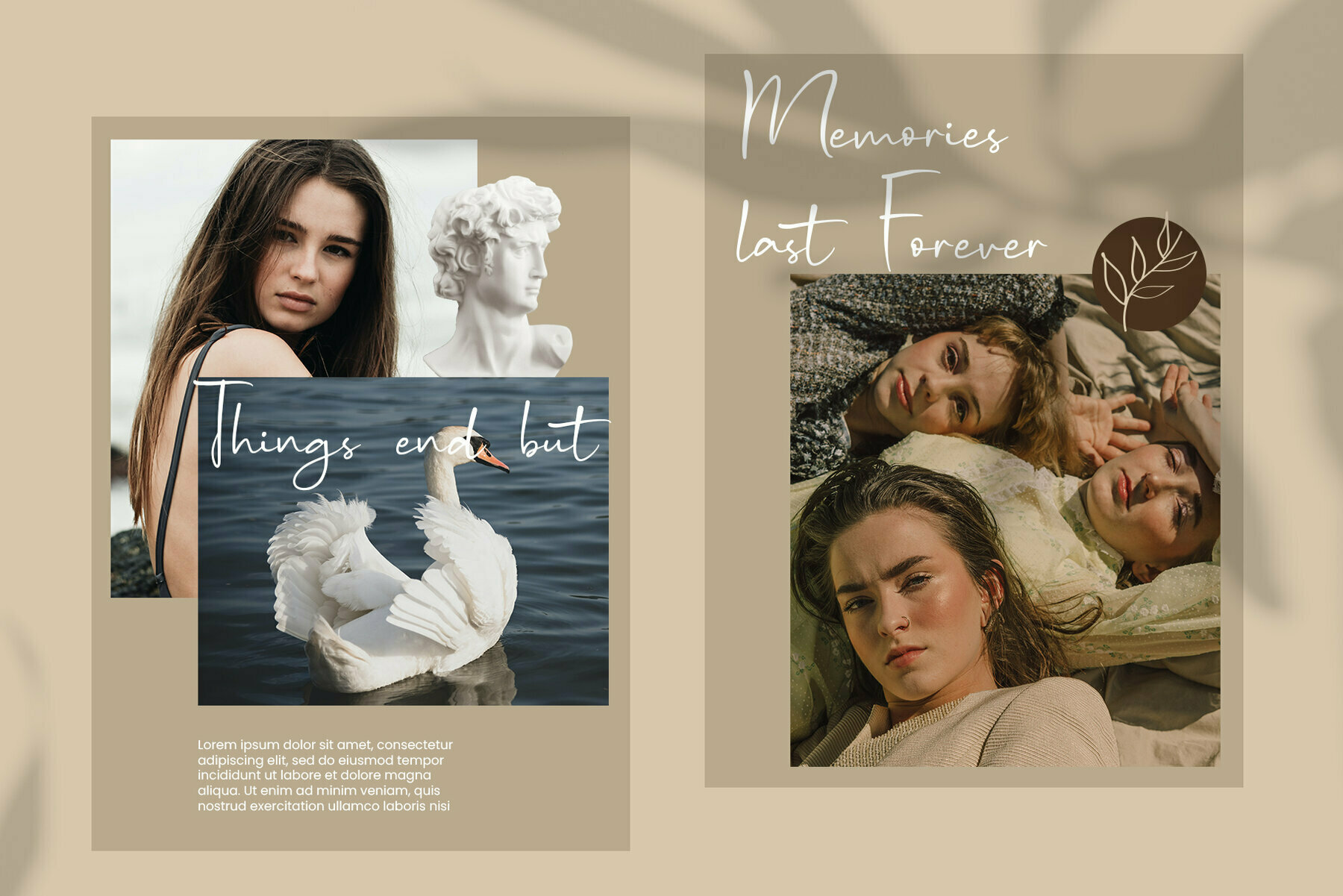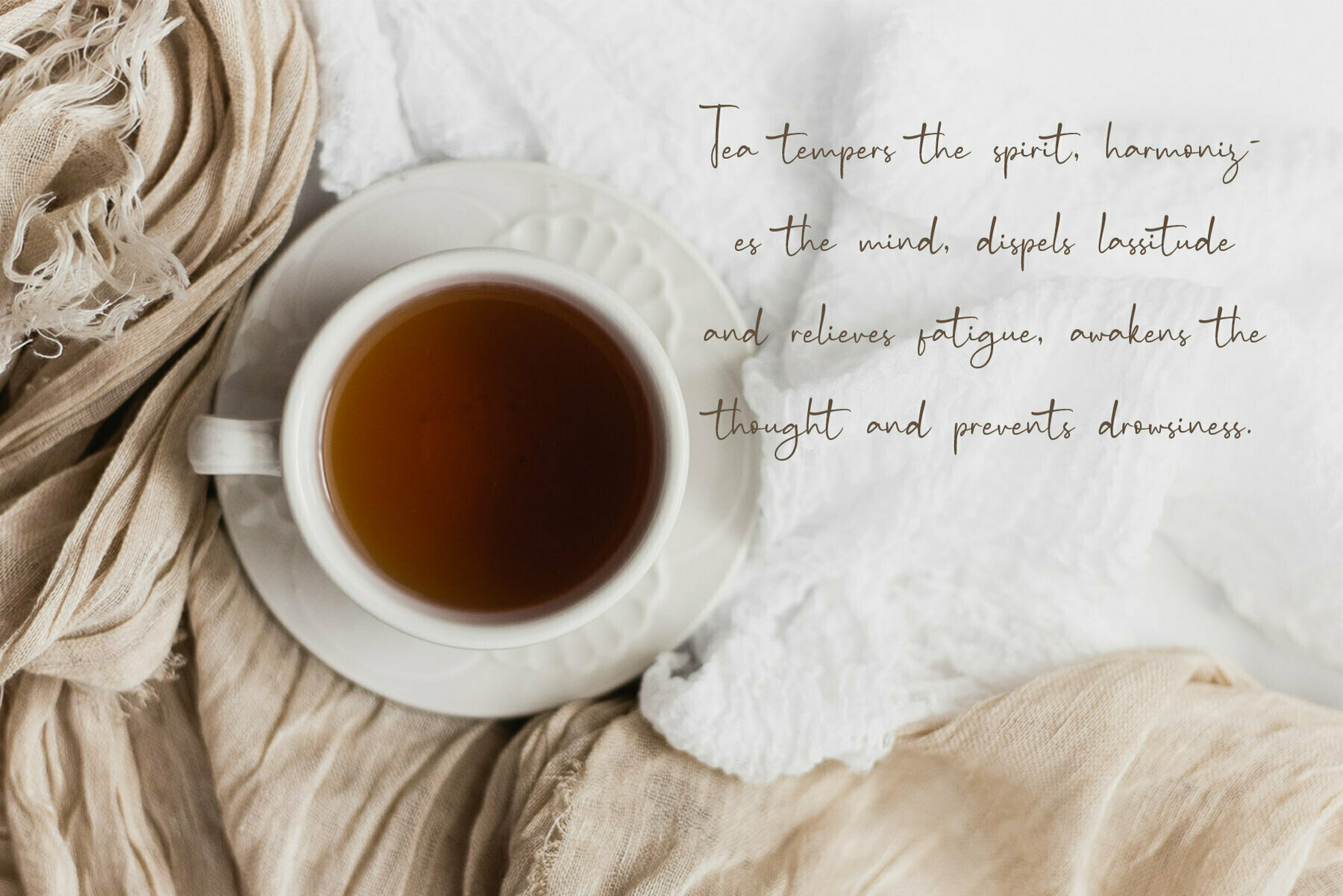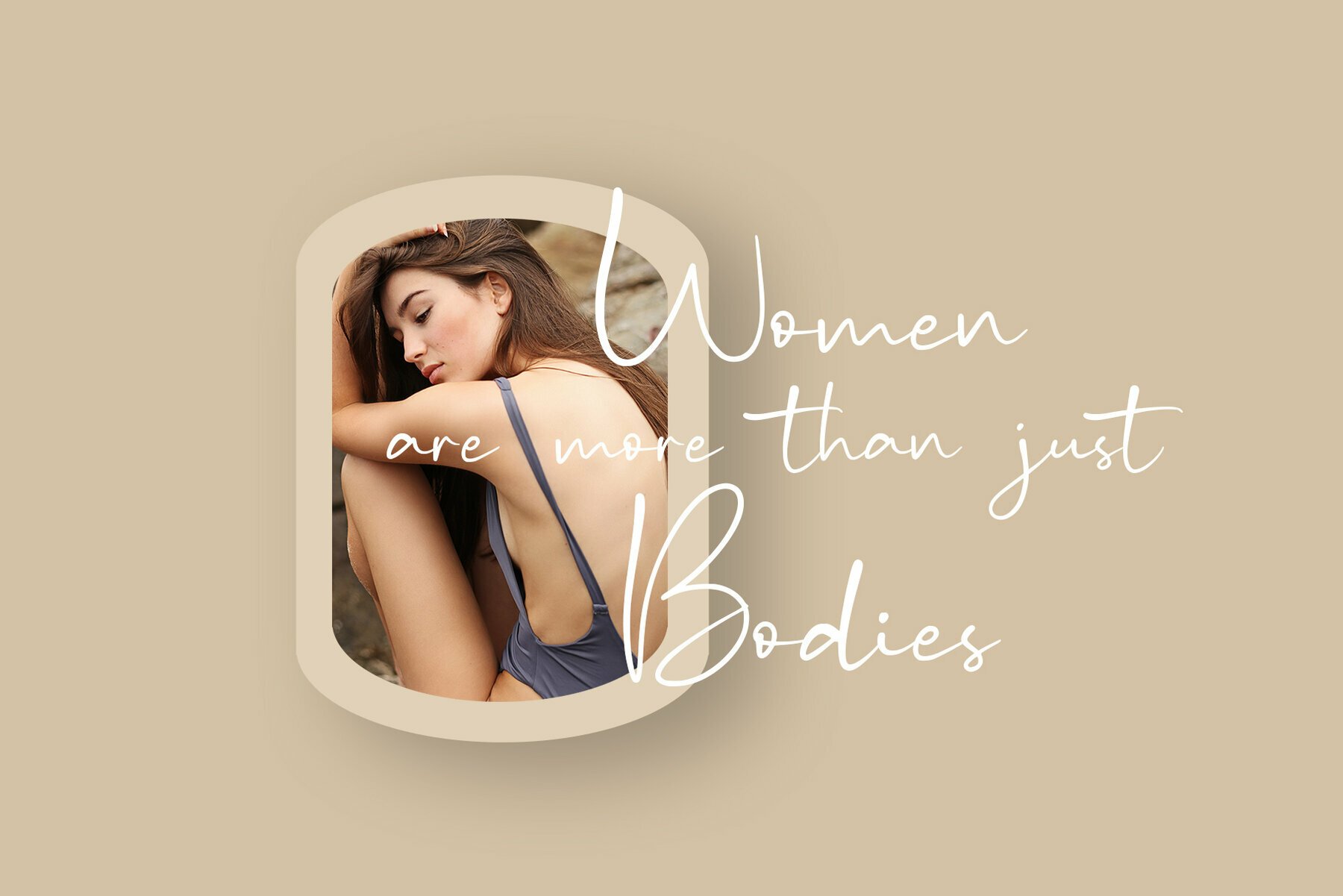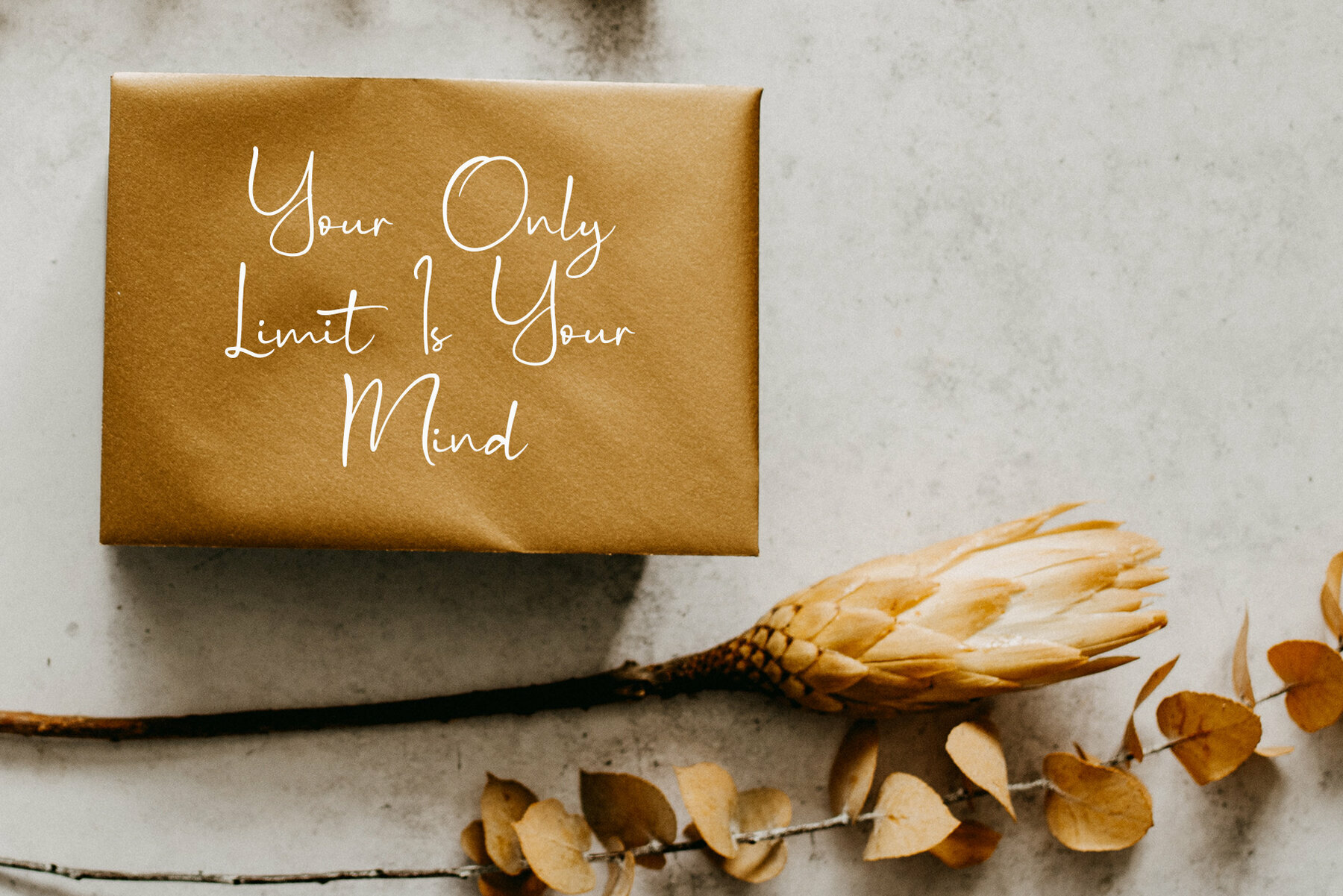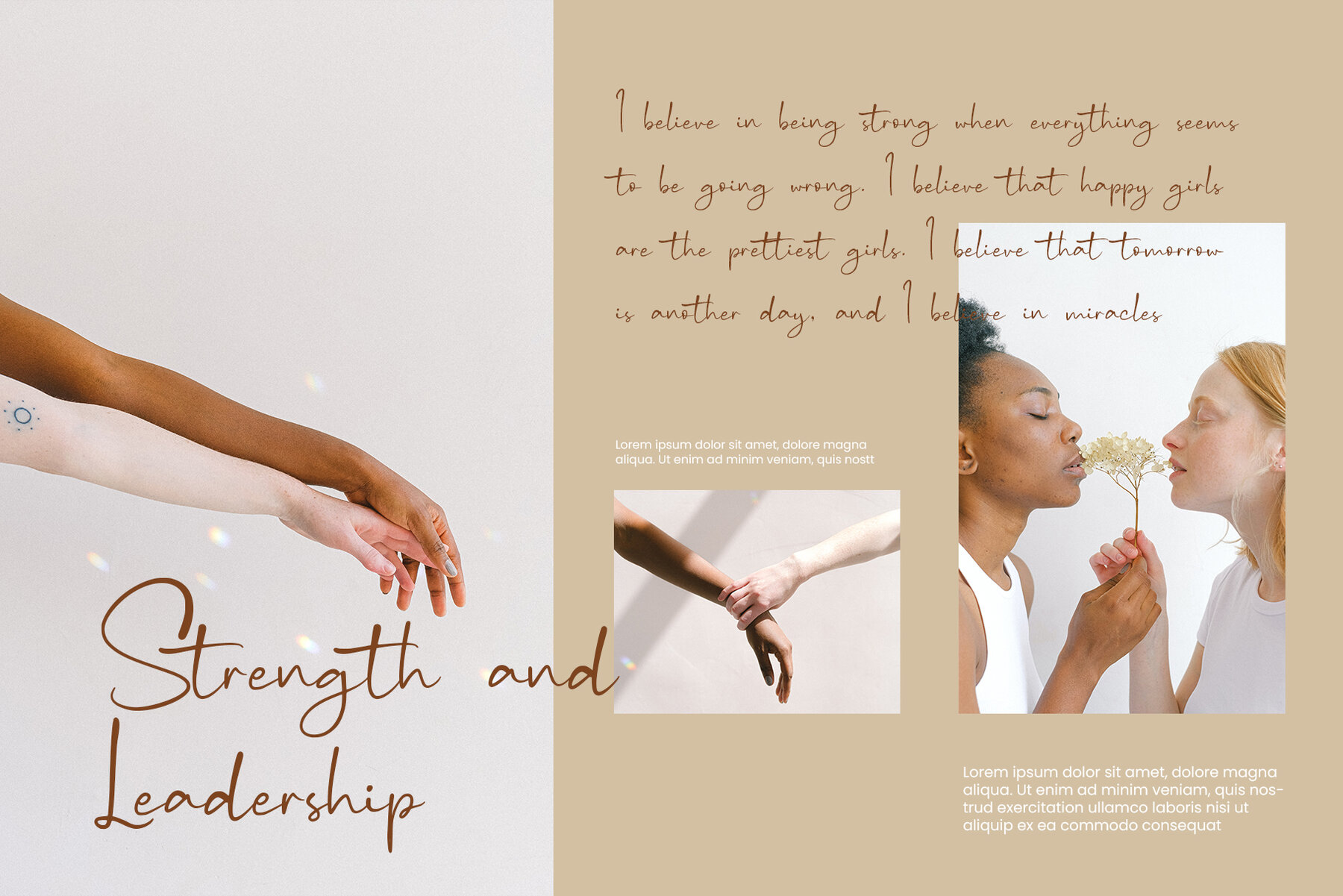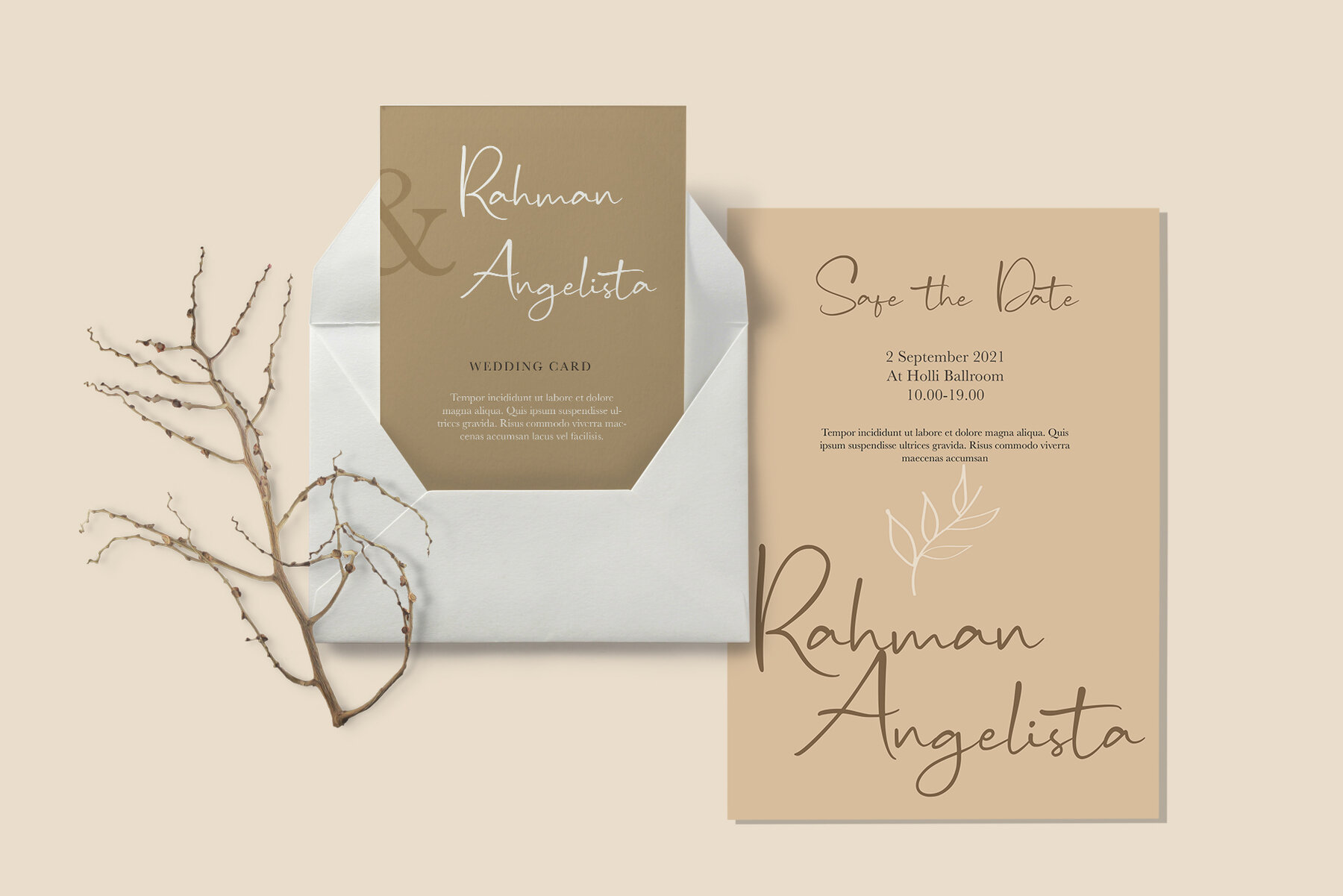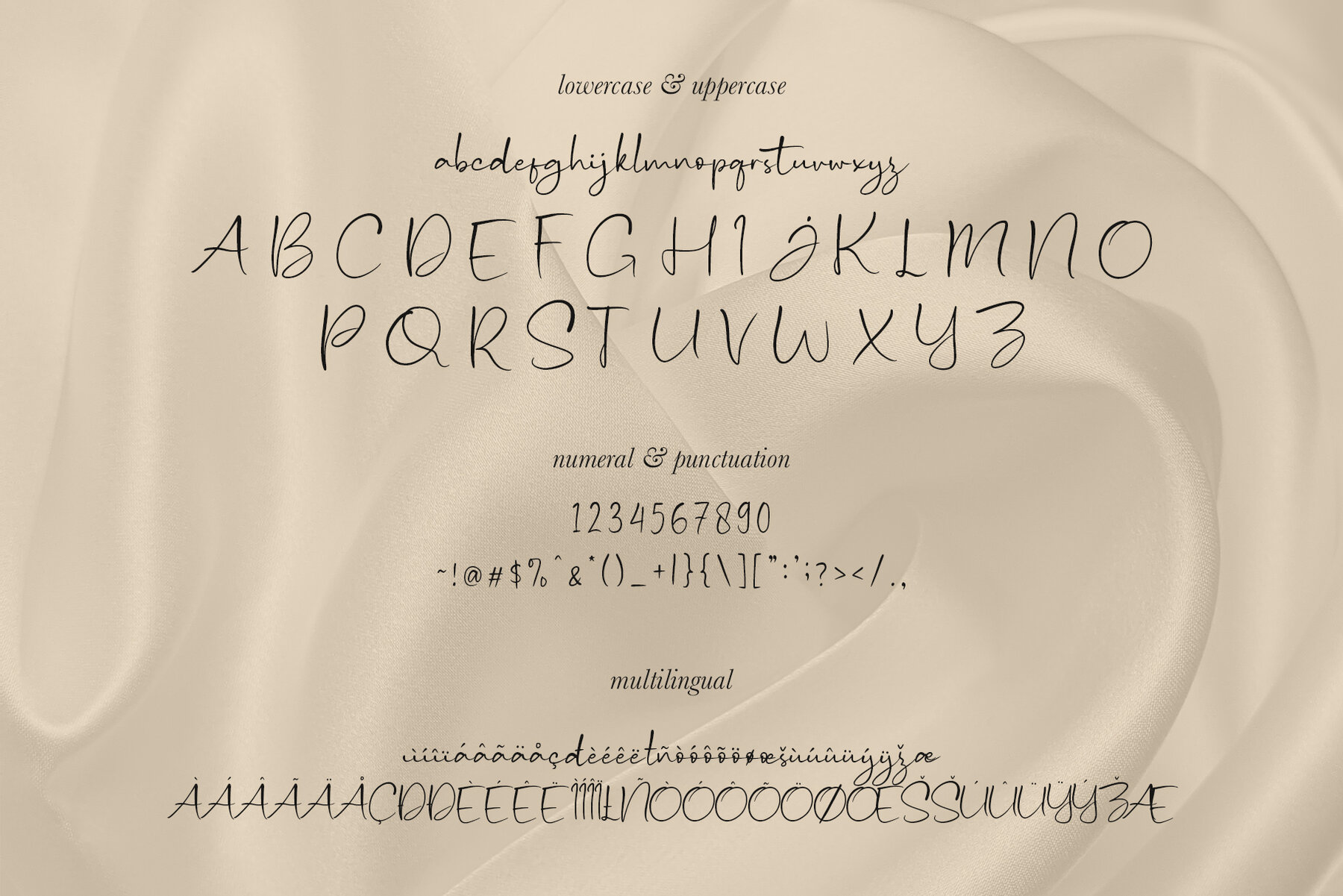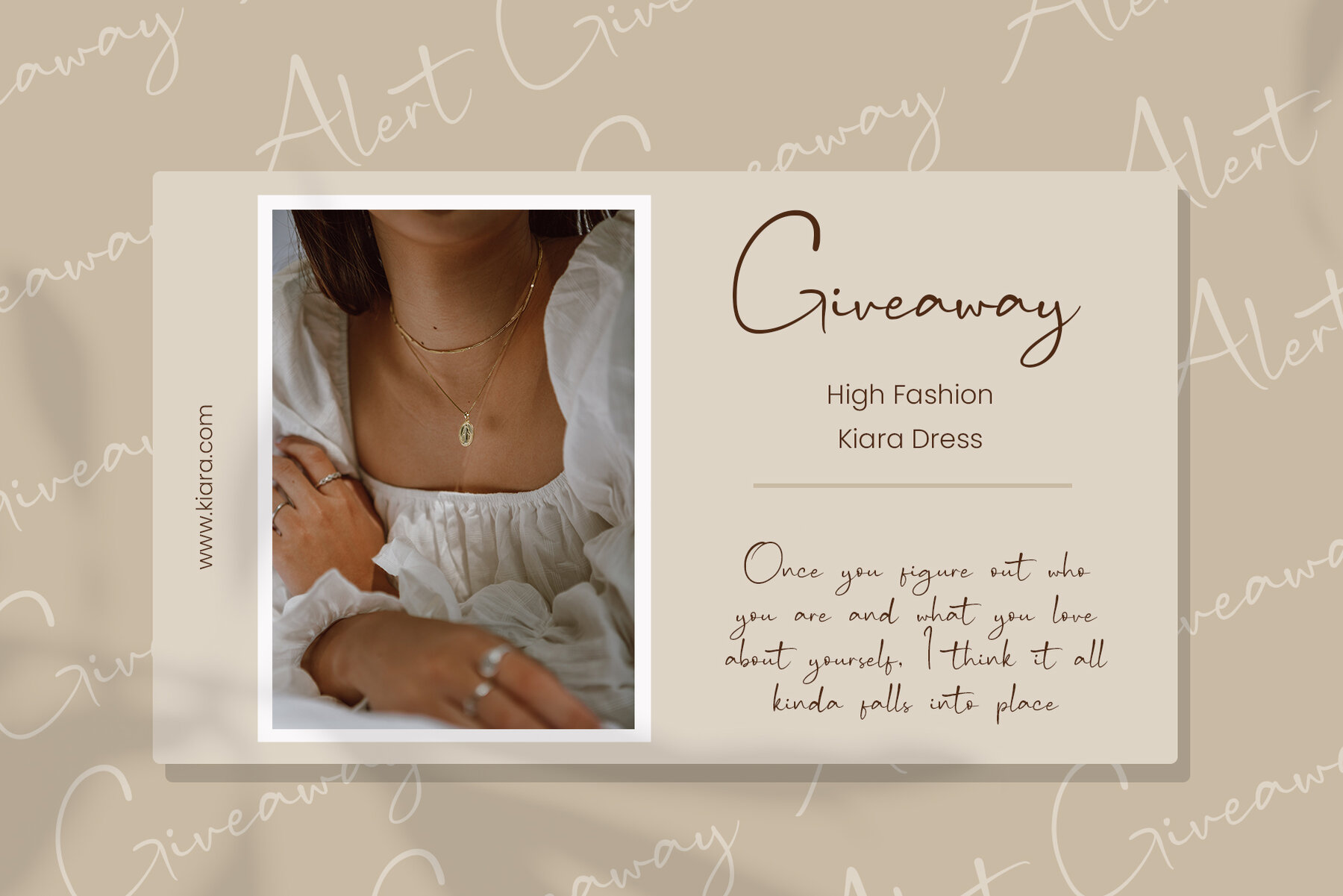
Batsy Font
Batsy, a modern hand-drawn calligraphy font, encapsulates the fluidity of natural hand movement. Designed for versatility, Batsy is perfect for fashion and e-commerce brands, trend blogs, and wedding boutiques, delivering an upscale and chic aesthetic. Its elegant strokes and natural flow infuse sophistication into logos, greeting cards, and posters, while enhancing the visual appeal of stationary, blog headers, and DIY projects.Batsy: Chic Handwriting Font for Modern Design